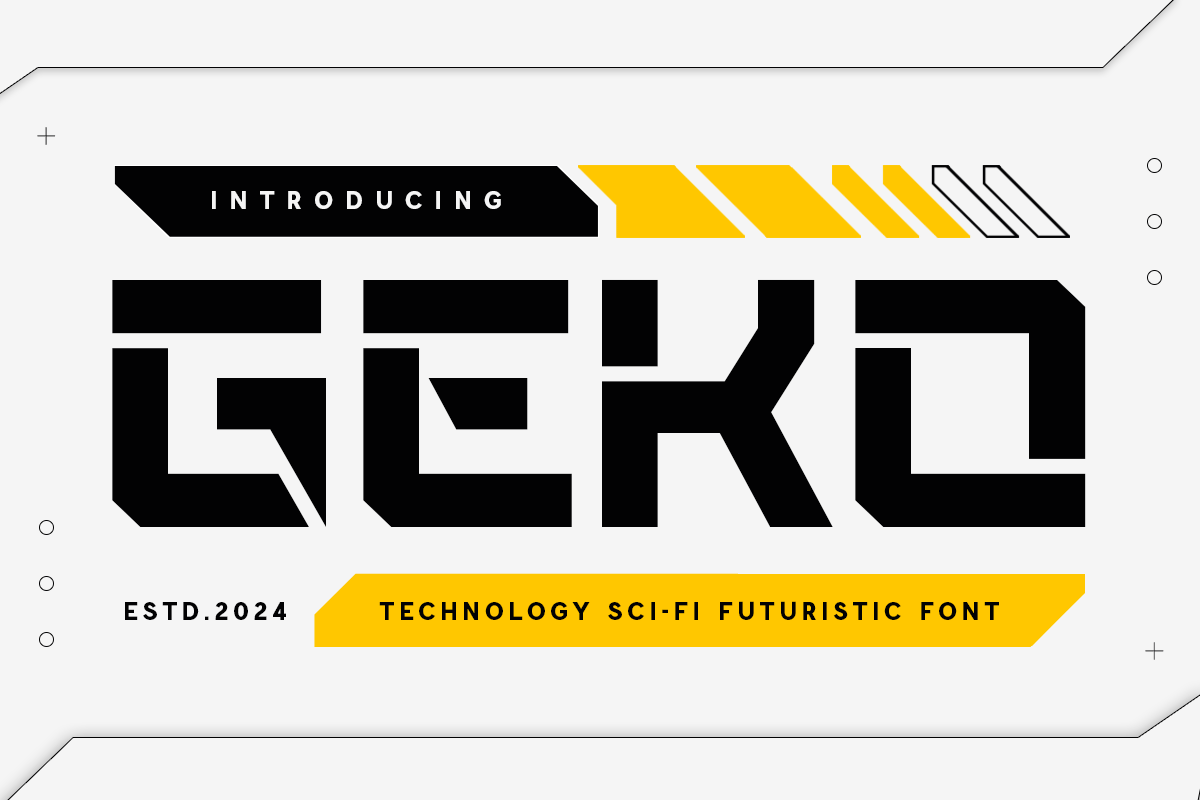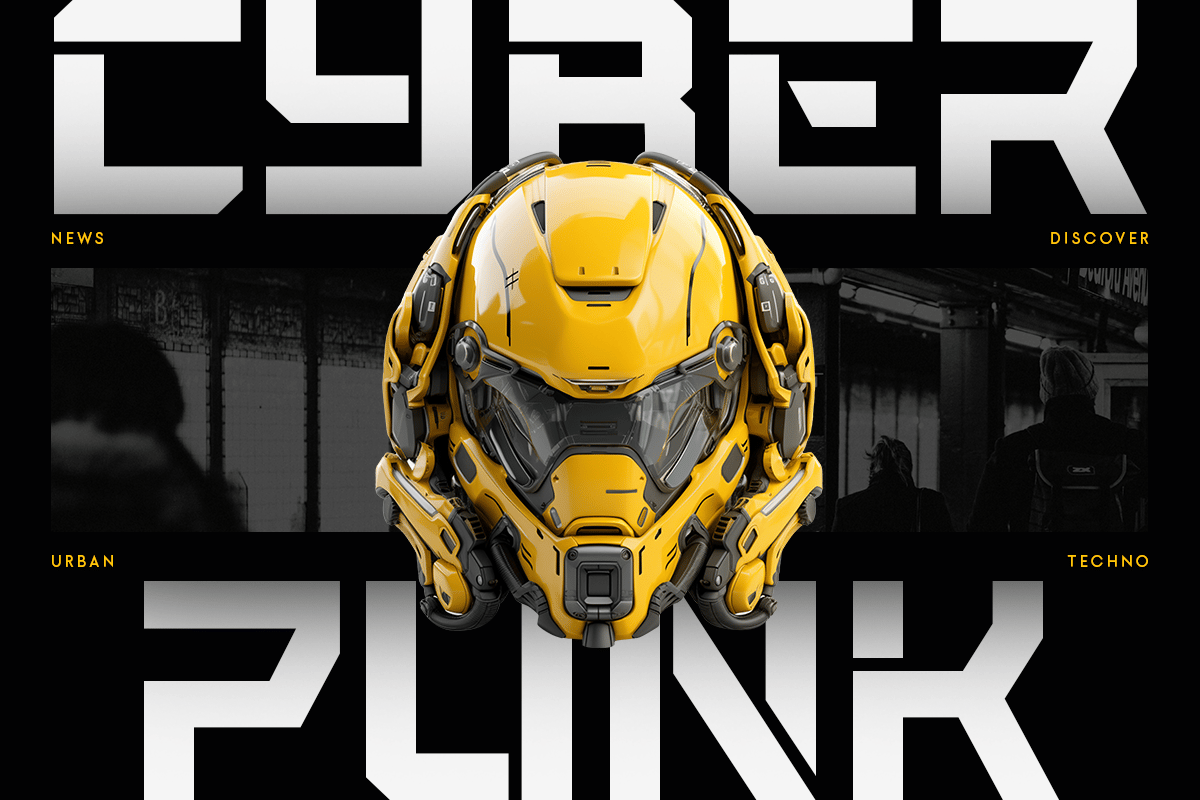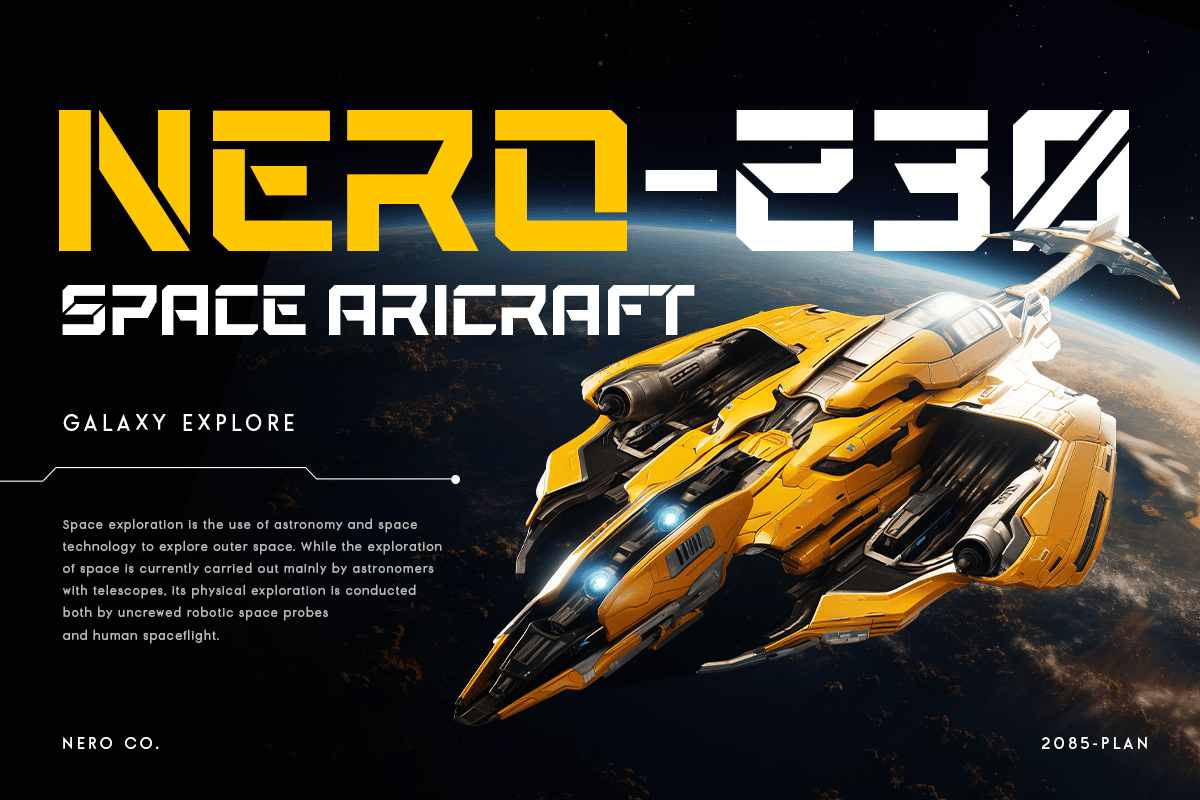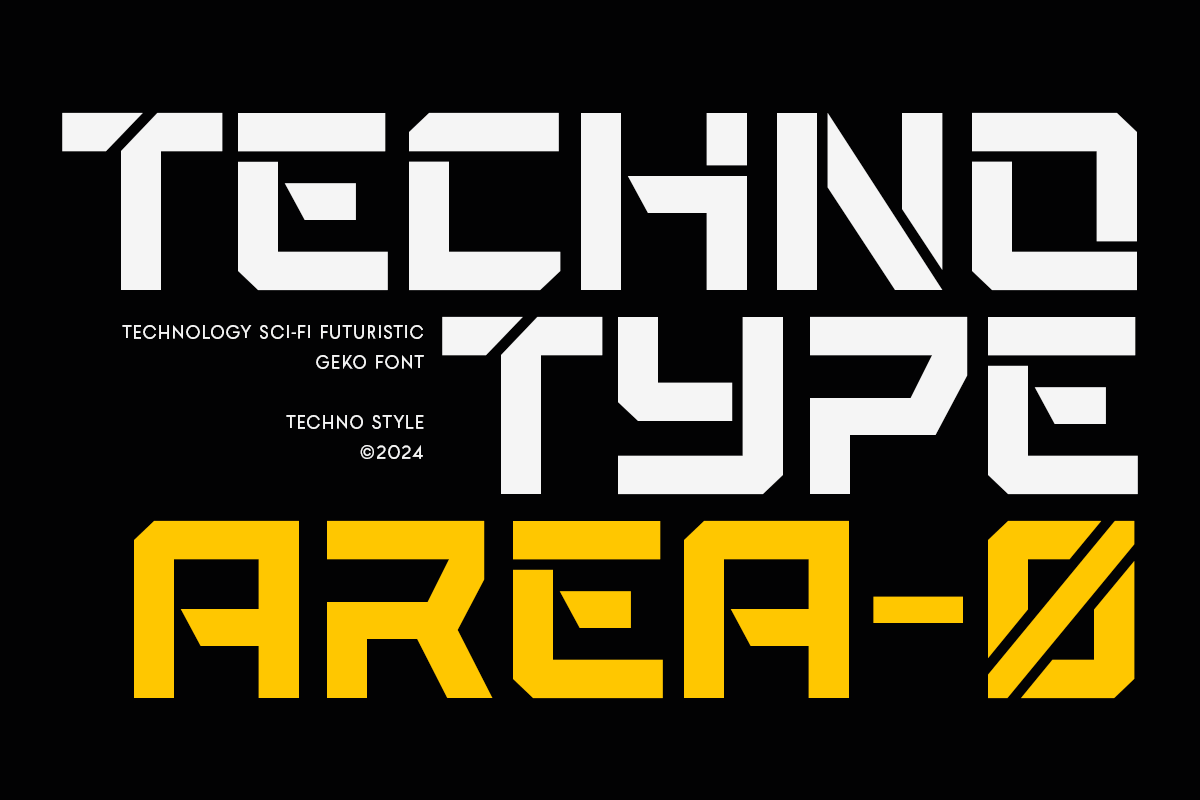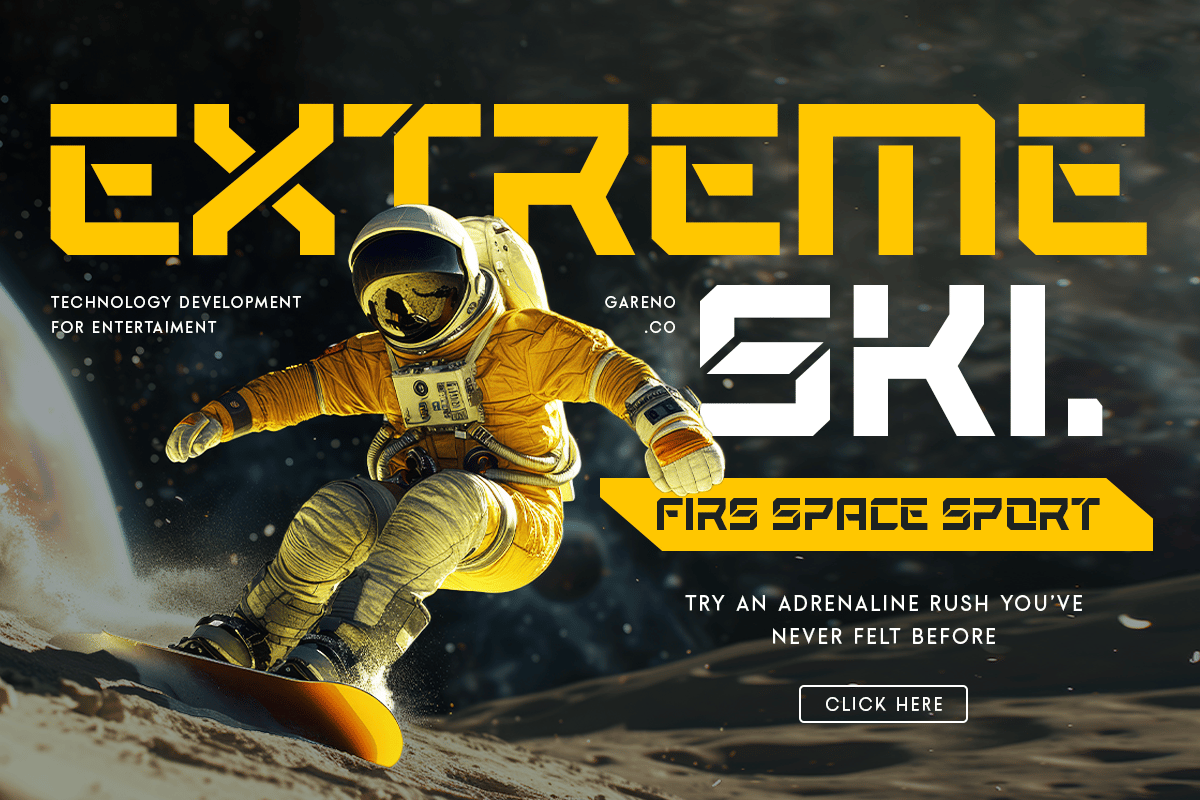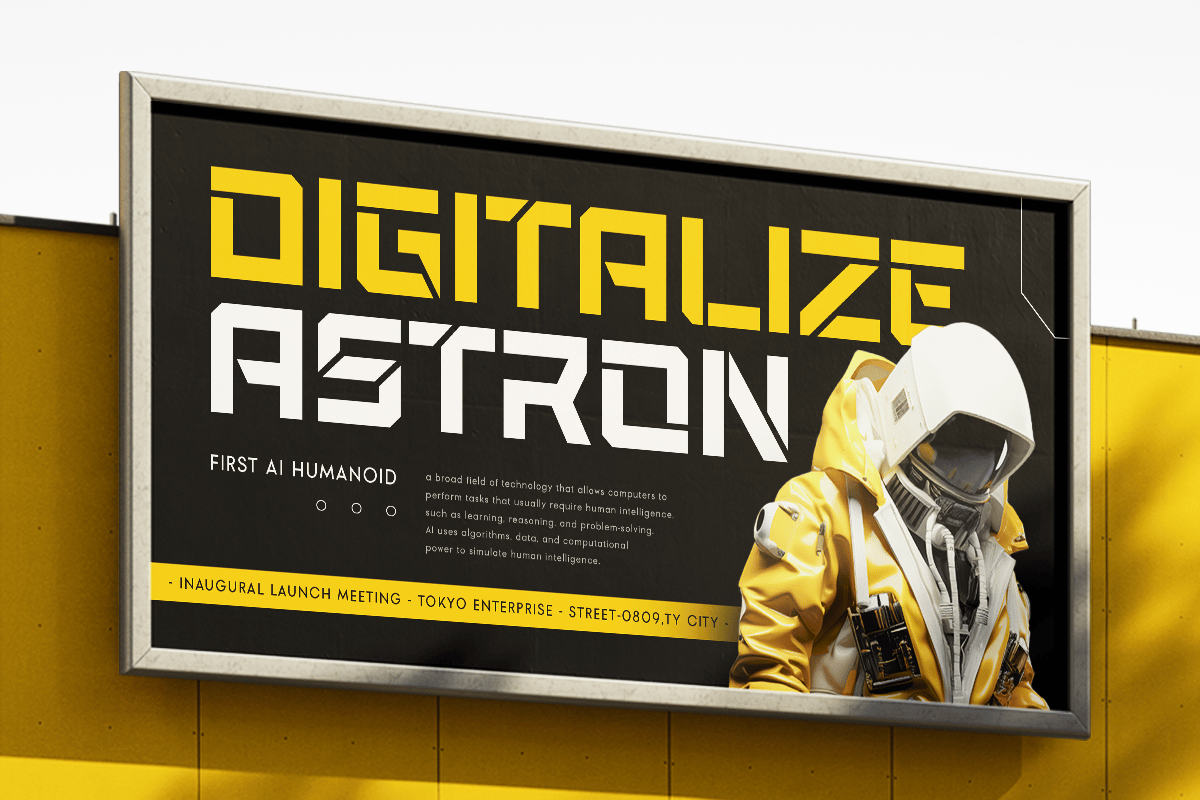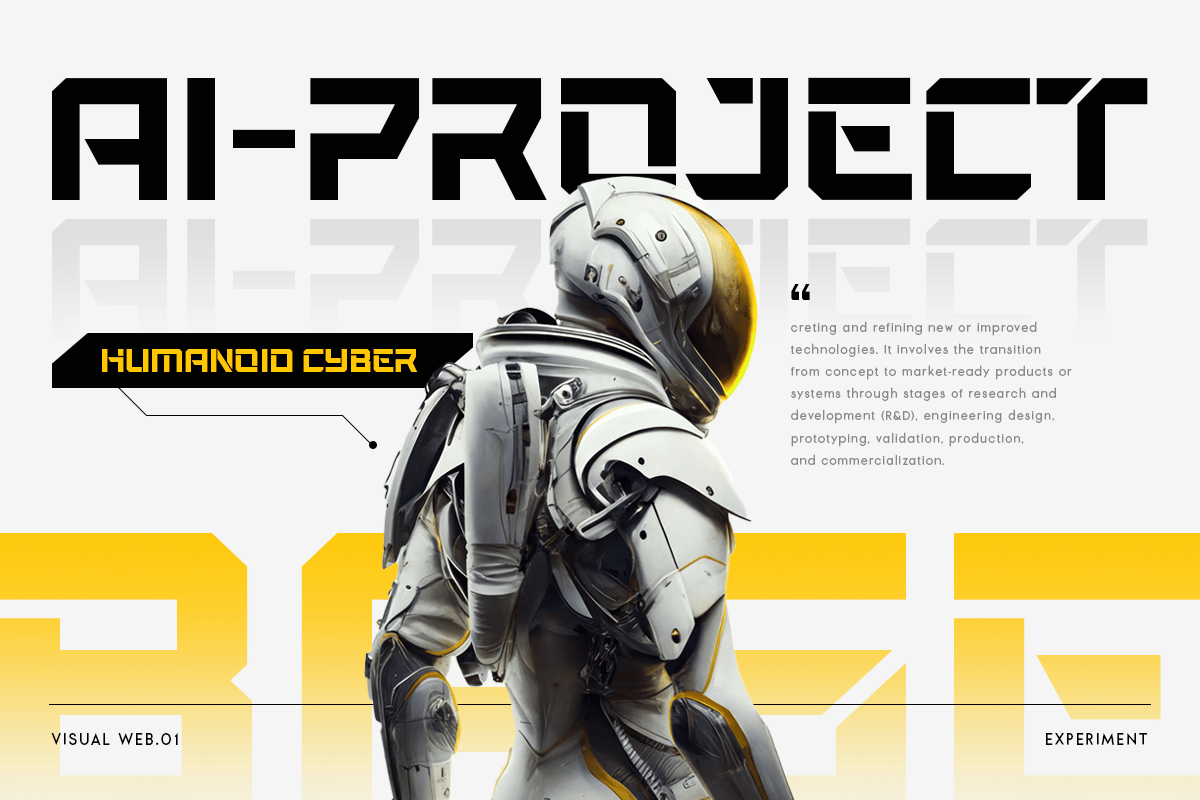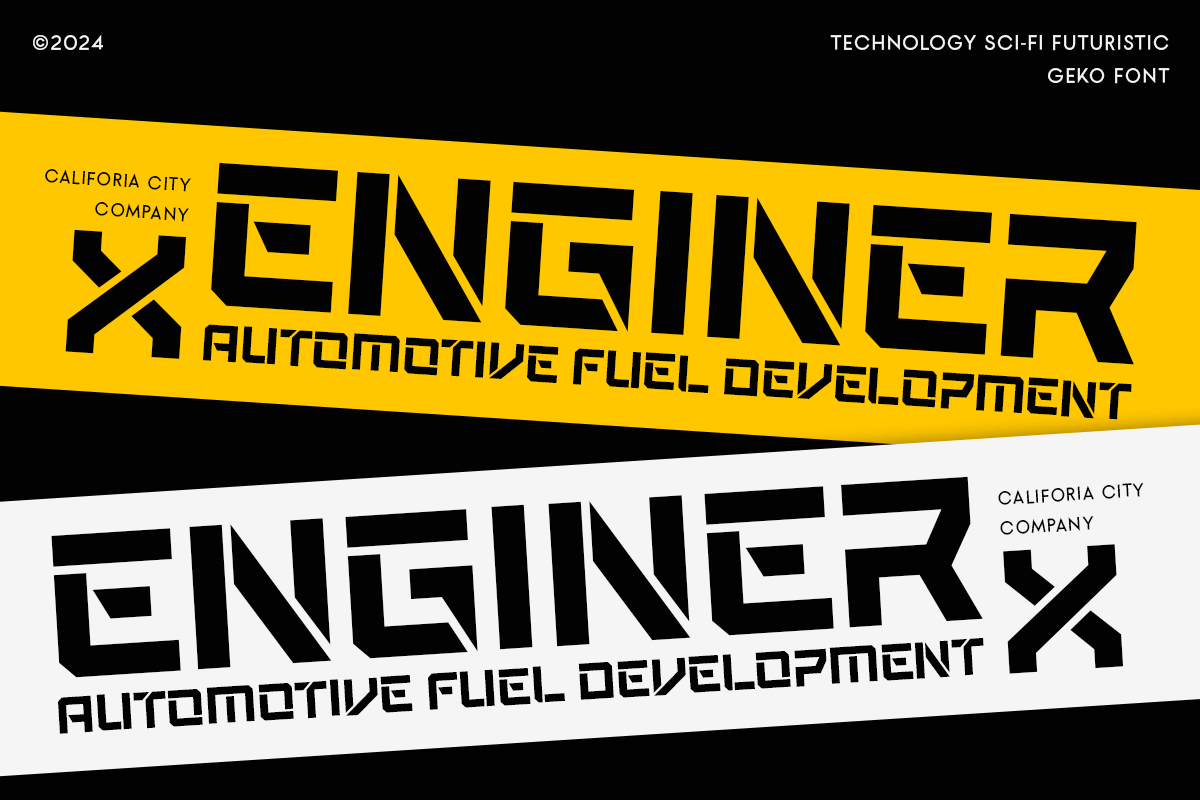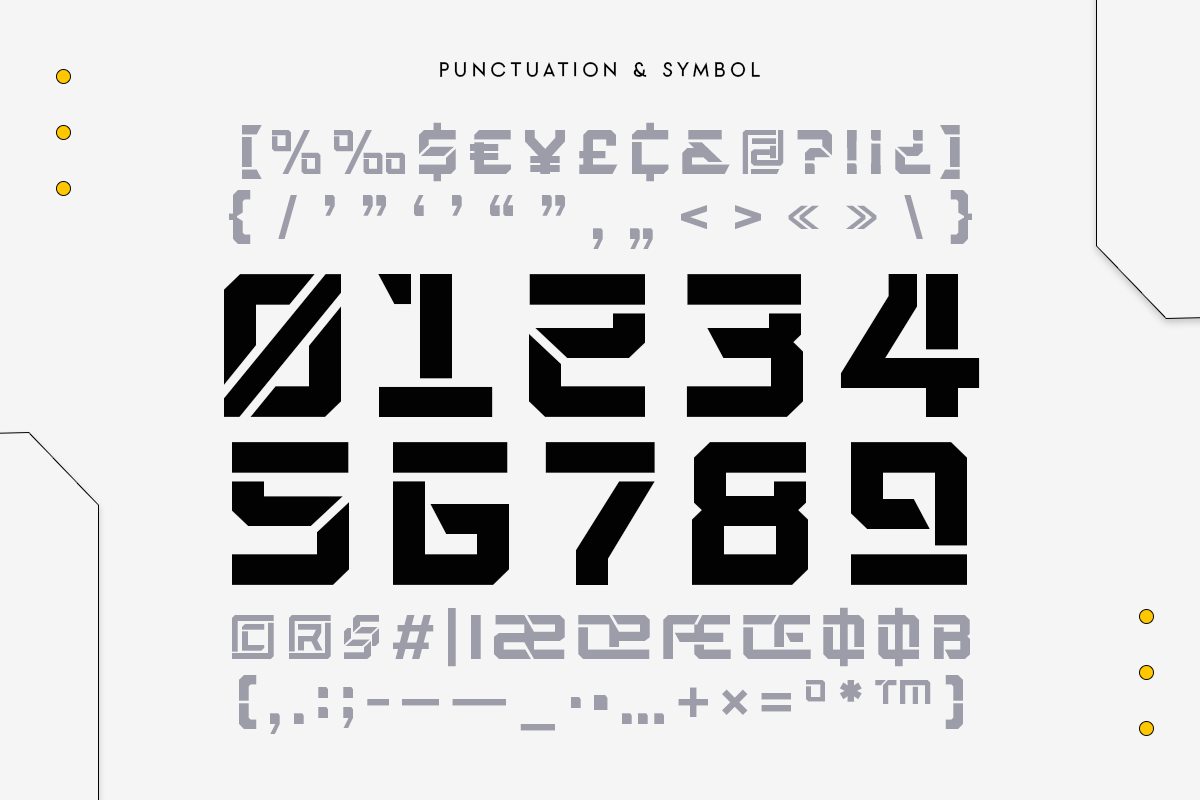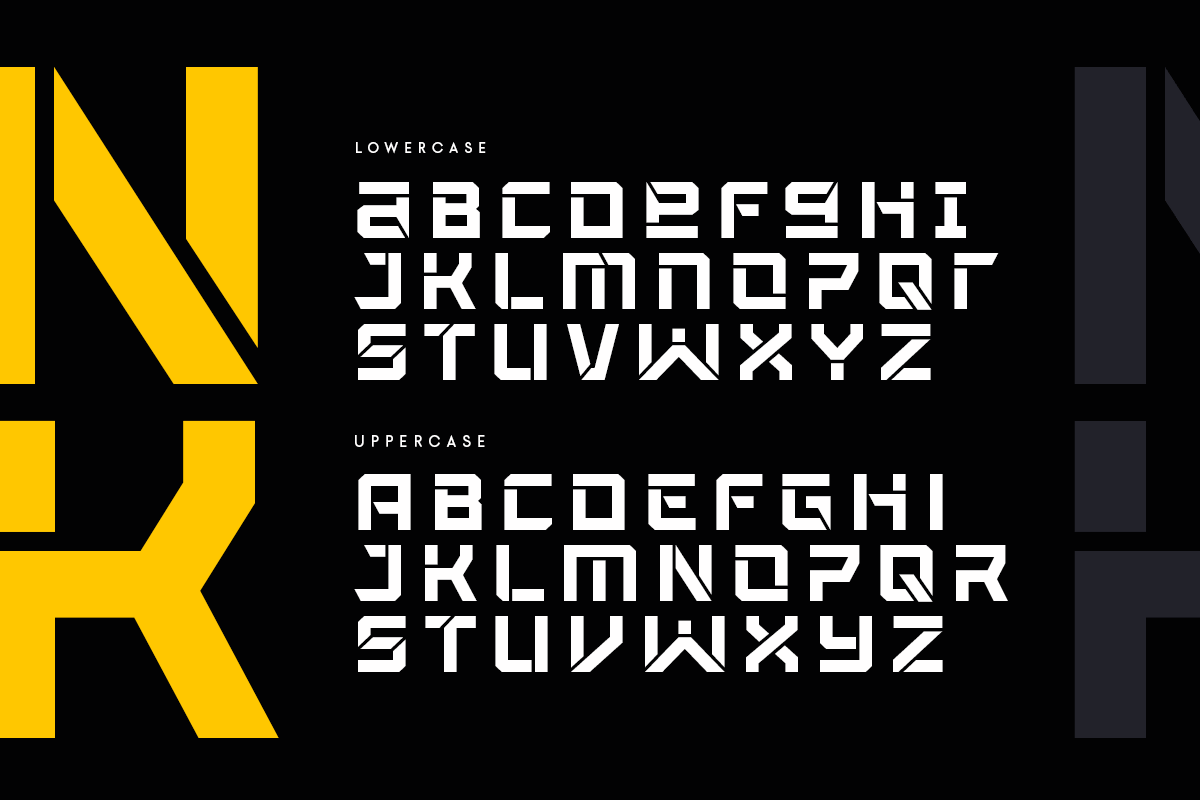
GEKO Sci-fi Font
Introducing GEKO, a modern sci-fi font crafted for futuristic and innovative designs. Perfect for projects that need a touch of the future, GEKO combines sleek lines with a cutting-edge aesthetic to bring your ideas to life.
The Story Behind GEKO:
GEKO was inspired by the limitless possibilities of the future. Imagine a world where technology and design merge seamlessly, creating environments that are both functional and visually stunning. This font captures that vision, offering a sleek and modern look that is perfect for any project aiming to make a bold statement. GEKO is ideal for designers who want to push the boundaries and explore new frontiers in their work.
GEKO Font Features:
- Modern Design: Contemporary and stylish, perfect for futuristic projects.
- Sci-fi Aesthetic: Sleek lines and sharp angles that evoke a sense of innovation and advanced technology.
- Versatile Usage: Ideal for logos, branding, headlines, posters, and tech-related designs.
- High Legibility: Clear and sharp, ensuring your message is communicated effectively.
- Futuristic Appeal: Combines modern style with a vision of the future.
- Inspirational Previews: Includes sample designs to spark your creativity.
Perfect For:
- Tech Branding: Create sleek and memorable logos for tech companies and startups.
- Futuristic Designs: Design eye-catching posters, flyers, and promotional materials with a sci-fi twist.
- Professional Materials: Develop modern and stylish business cards, letterheads, and office stationery.
- Marketing and Advertising: Enhance brochures, advertisements, and digital campaigns with a futuristic touch.
With GEKO, your designs will stand out as innovative and forward-thinking. Whether you’re working on tech branding, futuristic designs, or professional materials, GEKO provides the perfect blend of modern aesthetics and sci-fi appeal. Elevate your design projects with GEKO and bring a touch of the future to your work.